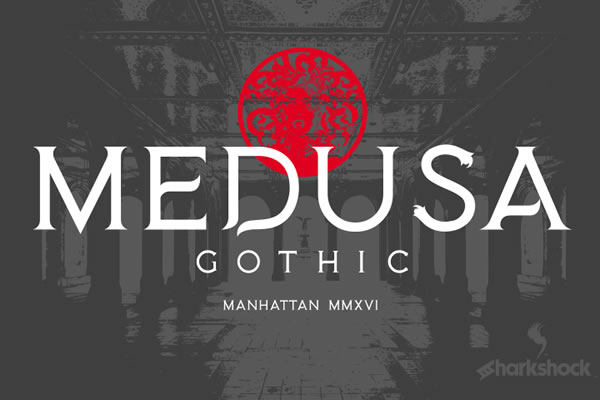
Introducing Medusa Gothic Font, a captivating Romanesque serif display font that will elevate your designs to new heights. Created by the talented team at Sharkshock, this font is specifically tailored for titles and logos, making it the perfect choice for any project that demands attention.
What sets Medusa Gothic apart from other fonts is its subtle yet curious leaf-like ornaments that gracefully embrace the lowercase C, J, and S. These unique details add a touch of intrigue and sophistication to your designs, setting them apart from the ordinary. However, if you prefer a more streamlined look, simply switch to all caps and watch these leaves disappear.
With extensive language support including basic and extended Latin characters, as well as kerning and limited punctuation, Medusa Gothic offers everything you need to bring your creative vision to life. While it may not be designed for body text, it ensures that you have the necessary punctuation at your disposal to craft captivating messages.
The beauty of Medusa Gothic lies in its fusion of classic Roman letter-forms with undulating glyphs, resulting in a visually striking font family that demands attention. Its light weight and generous kerning create a unique aesthetic that effortlessly fills horizontal space, giving your designs a distinctive and professional look.
Whether you're designing a book cover, creating a captivating game, designing a larger-than-life billboard, or crafting a memorable logo, Medusa Gothic is the perfect choice. Its versatile nature allows it to shine across various mediums and industries, making it a valuable asset for any designer or marketer.